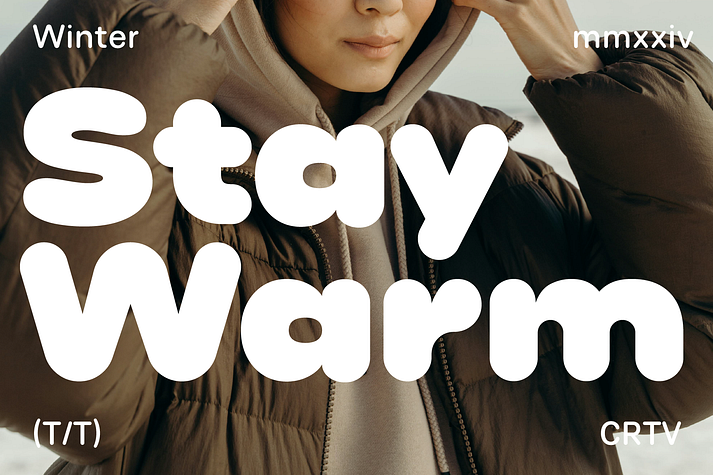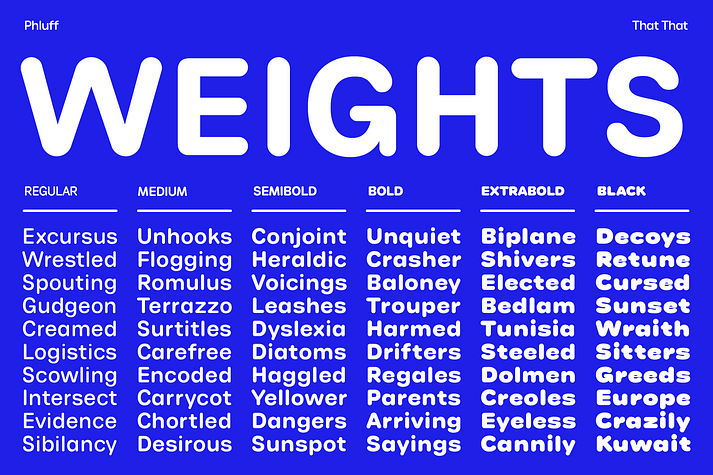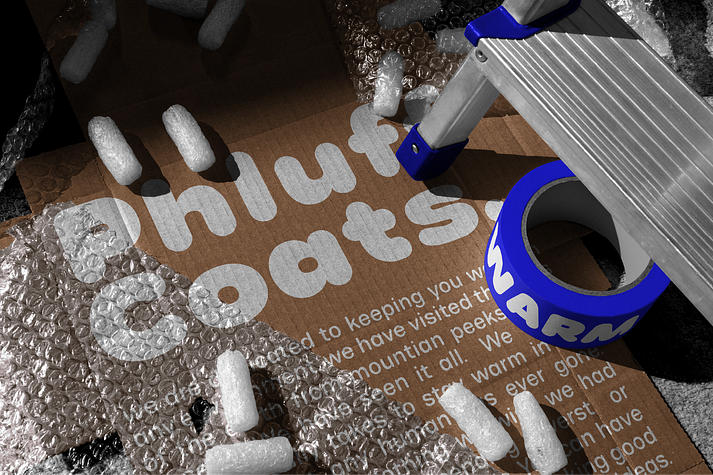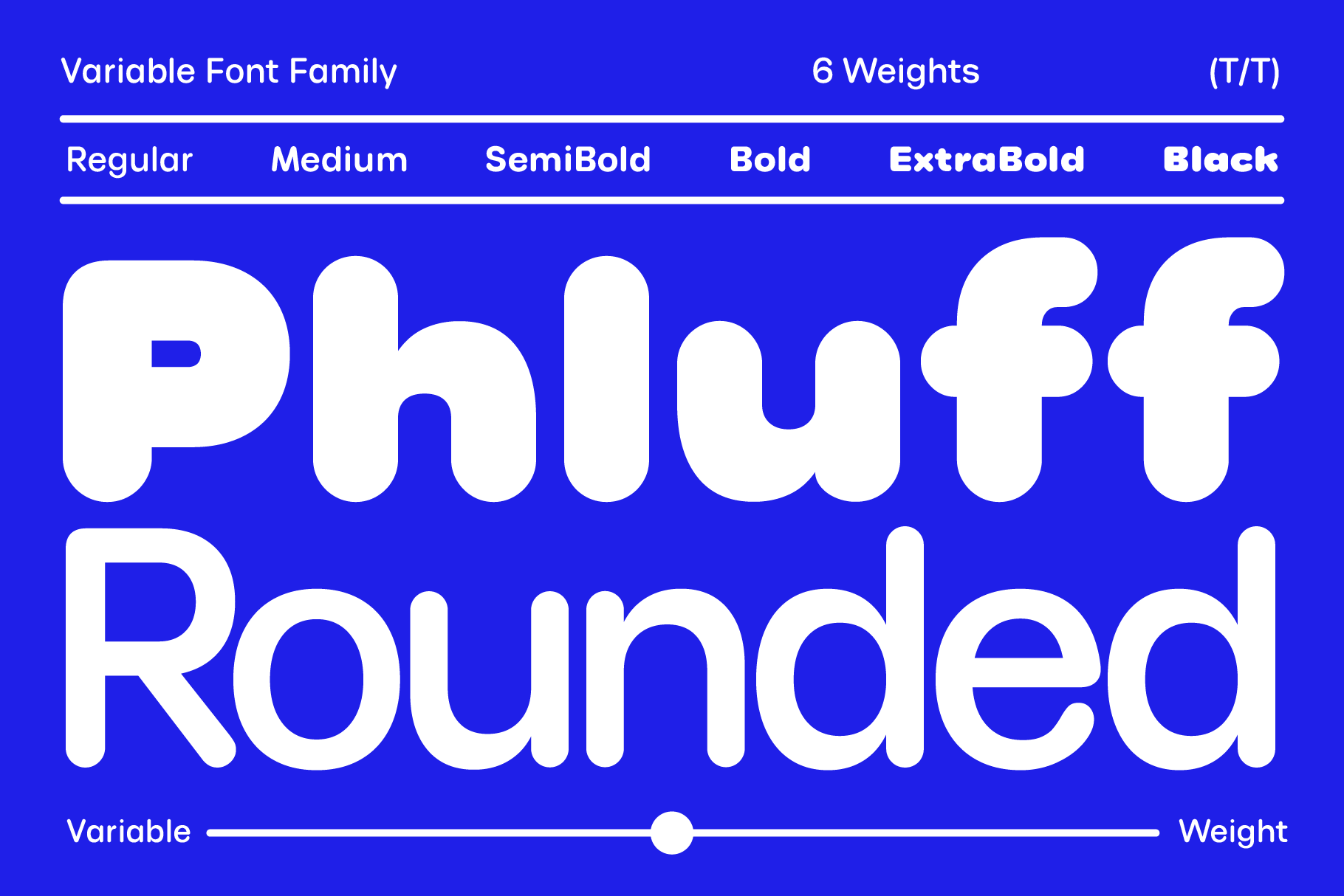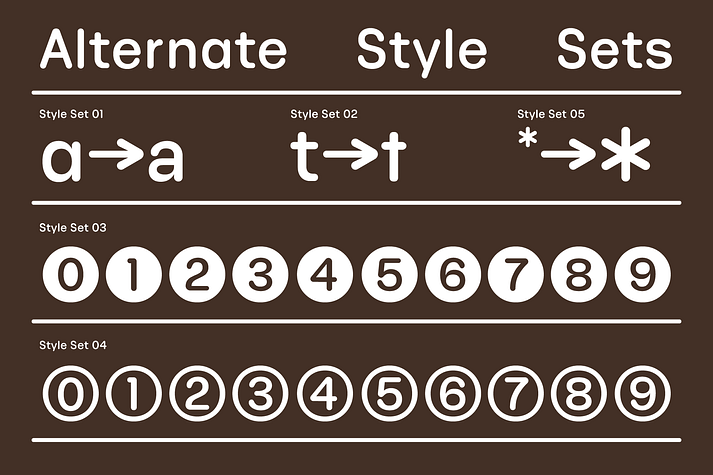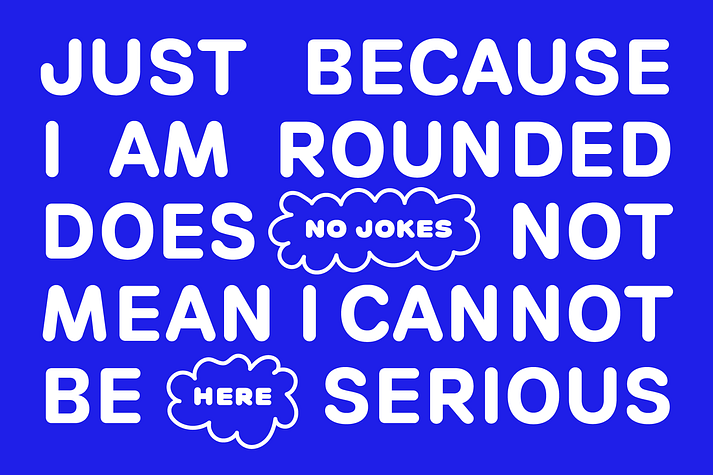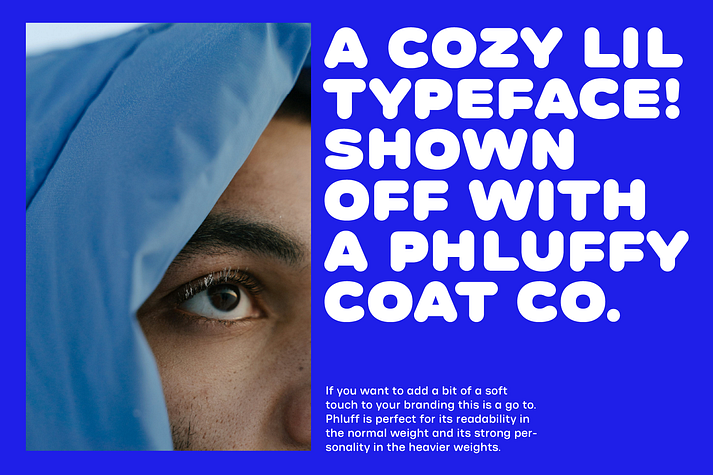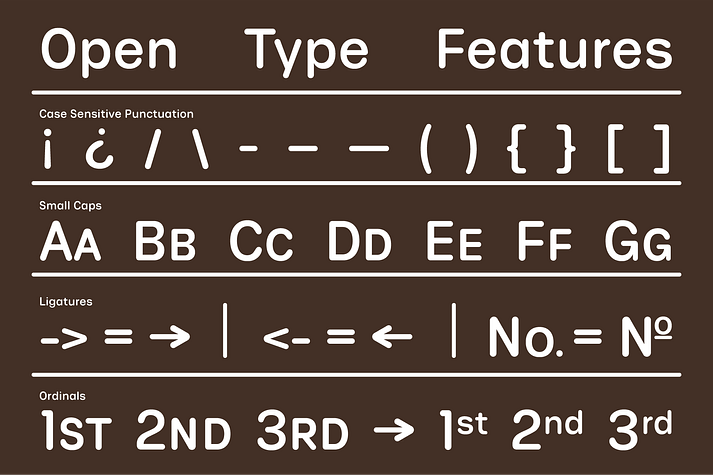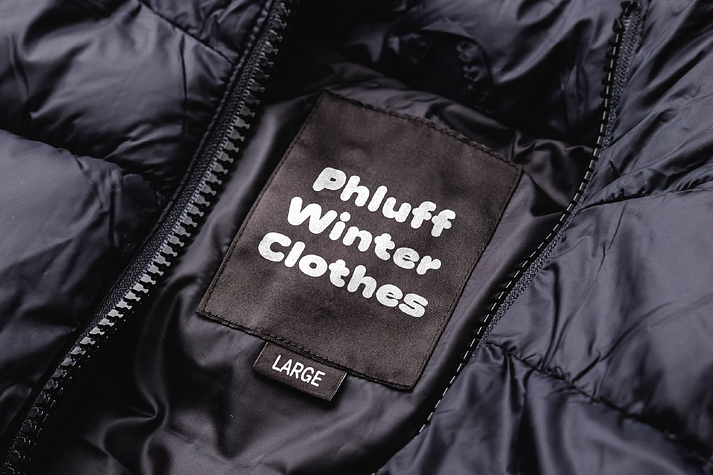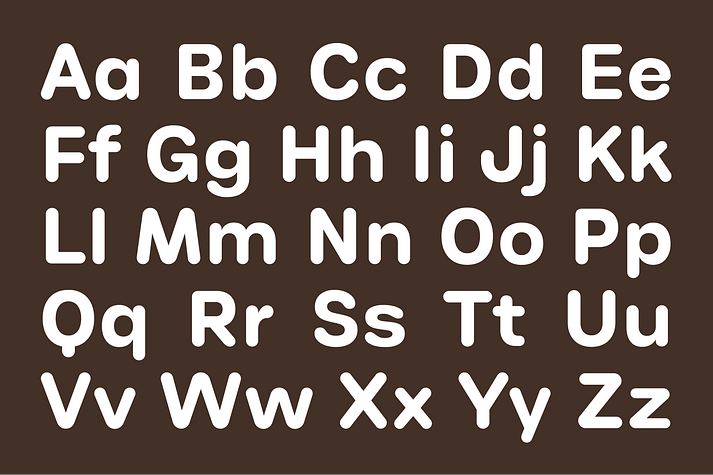
Phluff
Phluff is a sans serif font family. This typeface has six styles and was published by That That Creative.
Phluff is a Round Sans Variable Font Family. It is perfect for adding a bit a soft playfulness to your Design without taking away any of the elevated design sense. This font is right at home on a high end fashion brand or an invitation for a toddlers birthday party. Weather its branding, logos, magazines, social media or posters, this font is perfect for a bit of elevated softness. The Weight of This font is variable so you a dial in exactly how bold you want your font.
• 5 Style Sets
• Case Sensitive Punctuation
• Small Caps
• Ligatures
• Ordinals